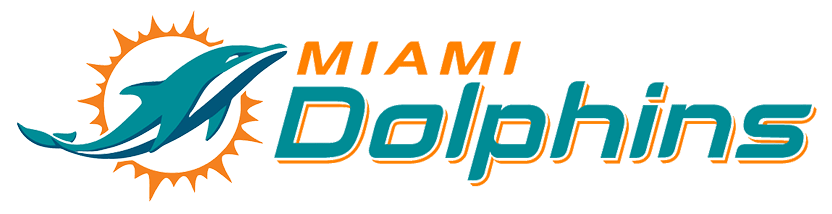
Miami Dolphins Logo Font
The Miami Dolphins Logo Font Is Nfl Miami Dolphins.
The miami dolphins logo font is nfl miami dolphins. It is a miami font created in 2005 and has been downloaded 4,023 times. (1.1″ w x.98″ h) (2.2″ w x 1.97″ h) (3.31″ w.
The Dolphin Illustration Doesn’t Have The Helmet Anymore But It’s More Minimalistic And Artistic Than Before.
Font The Only Alphabet That Was Ever Used In The Miami Dolphins Logo Was “M.” Though There Were Several Updates Made To The Font, The Clear Serif Type Did Not Find Its Place After The 2013 Redesign Of The Club’s Visual Identity.